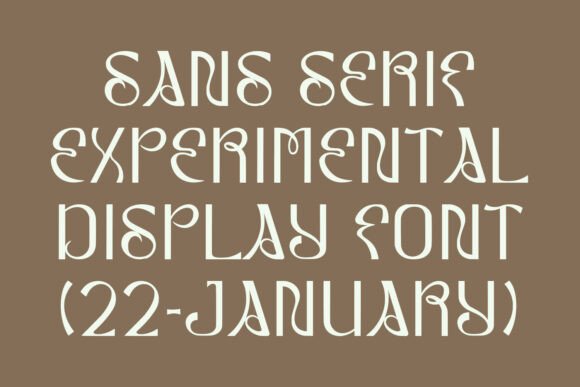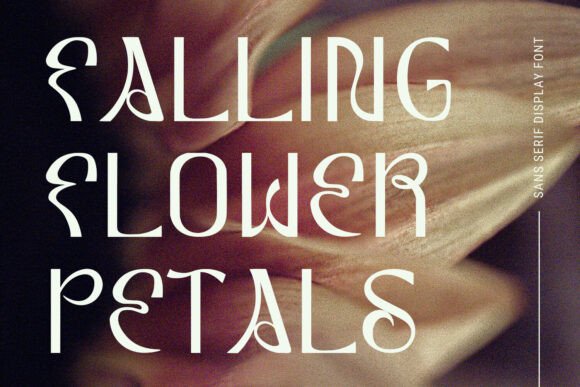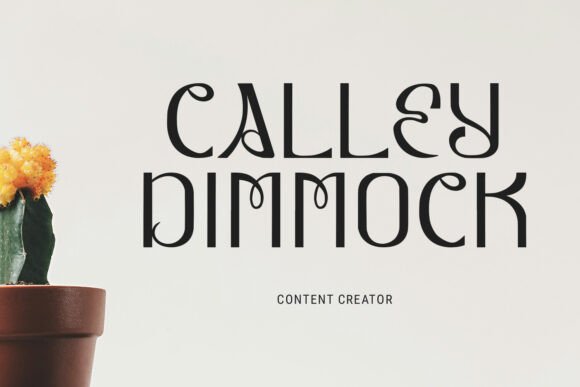
Introduction to Lynoile Font
As a designer, have you ever stared at a blank canvas, trying to find the perfect font to elevate your creative project? You know, that one font that makes your design pop and leaves a lasting impression on your audience? I’m here to tell you that your search is over, and the solution is Lynoile Font. This sleek and modern sans-serif display font is more than just a design resource – it’s a game-changer.
Lynoile Font boasts clean lines, elegant curves, and a unique twist that sets it apart from the rest. Whether you’re creating a logo, packaging, or editorial design, this high-quality font is the perfect addition to your design arsenal. And the best part? You can download Lynoile Font for free, complete with a transparent background, making it easy to integrate into your design.
Key Features of Lynoile Font
- High-quality design font suitable for creative projects, offering a unique and stylish aesthetic.
- Perfect for designers looking for a free design resource that adds a touch of sophistication to their projects.
- Can be used in a variety of creative projects, from logos and branding to digital art and graphics.
Honest Review: Lynoile Font
I recently had the chance to try out the Lynoile Font for a creative project, and I must say it’s been a great addition to my design resources. The high quality of this font is immediately apparent, and I love how versatile it is.
Here are some things that work well:
- ✨ Unique and creative design: The Lynoile Font has a distinct look that sets it apart from more generic fonts.
- ✨ High quality: The font is clear and crisp, making it perfect for print or digital projects.
That being said, I did encounter some limitations:
- ⚠️ Limited character set: The font only includes a limited number of characters, which may be a problem for designers who need to use a wide range of symbols and punctuation.
- ⚠️ No transparent background option: While the font itself is high quality, the lack of a transparent background option can make it difficult to use in certain design situations.
Overall, I’m really impressed with the Lynoile Font and would definitely recommend it to other designers. With a little creativity and planning, the limitations can be worked around, and the font is sure to be a valuable asset for any creative project.
The Lynoile Font is ideal for various creative projects, including:
- Graphic design and visual arts
- Logo design and branding
- Poster design and advertising
- Social media graphics and content creation